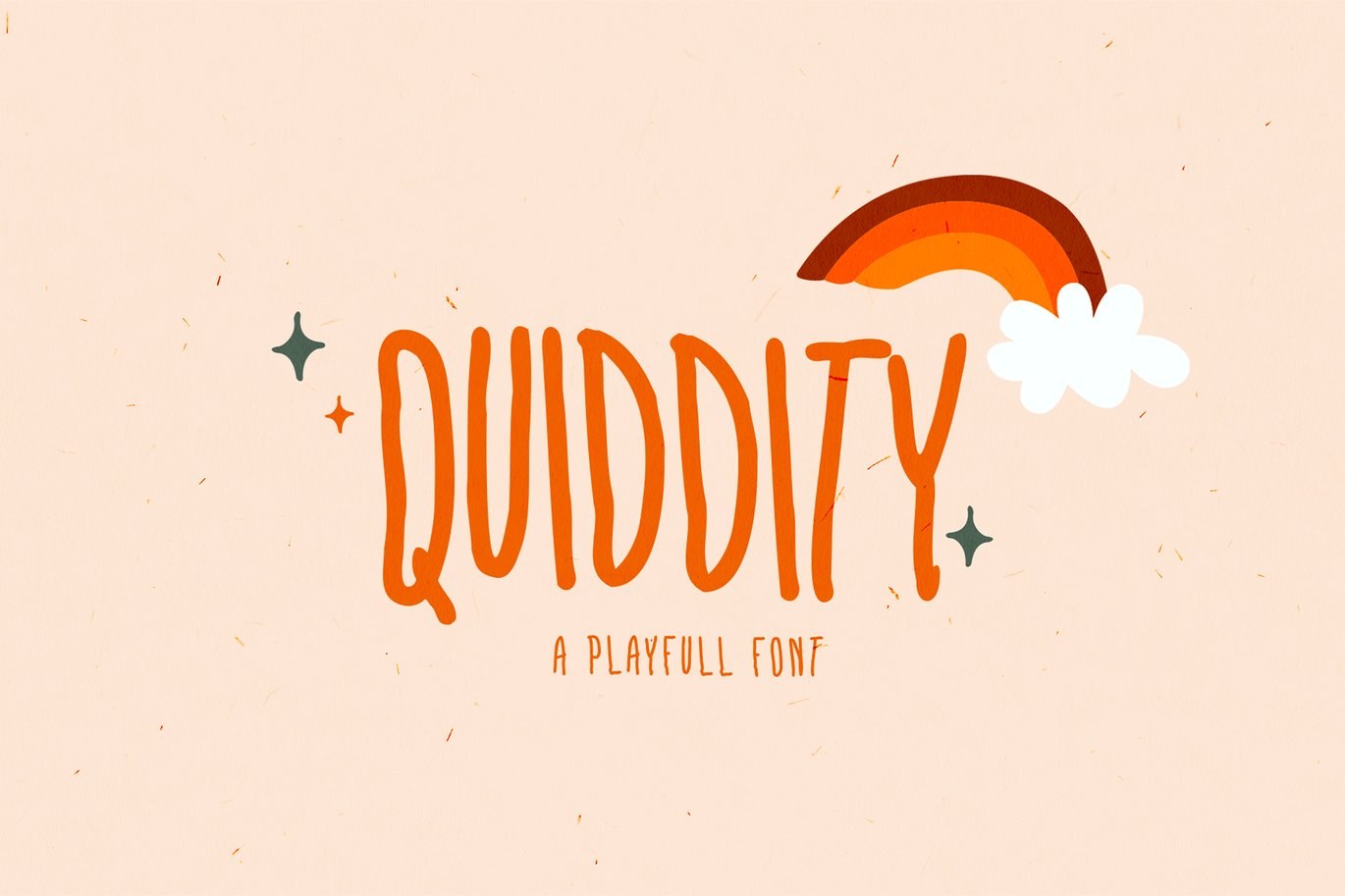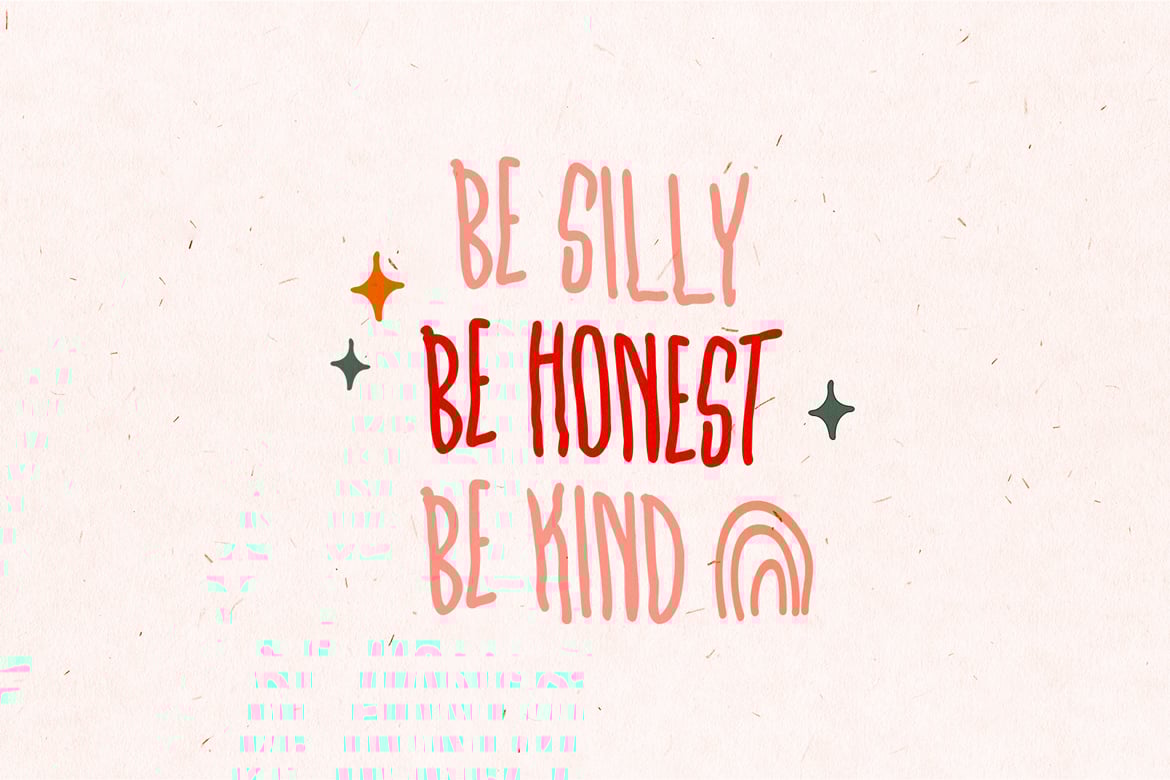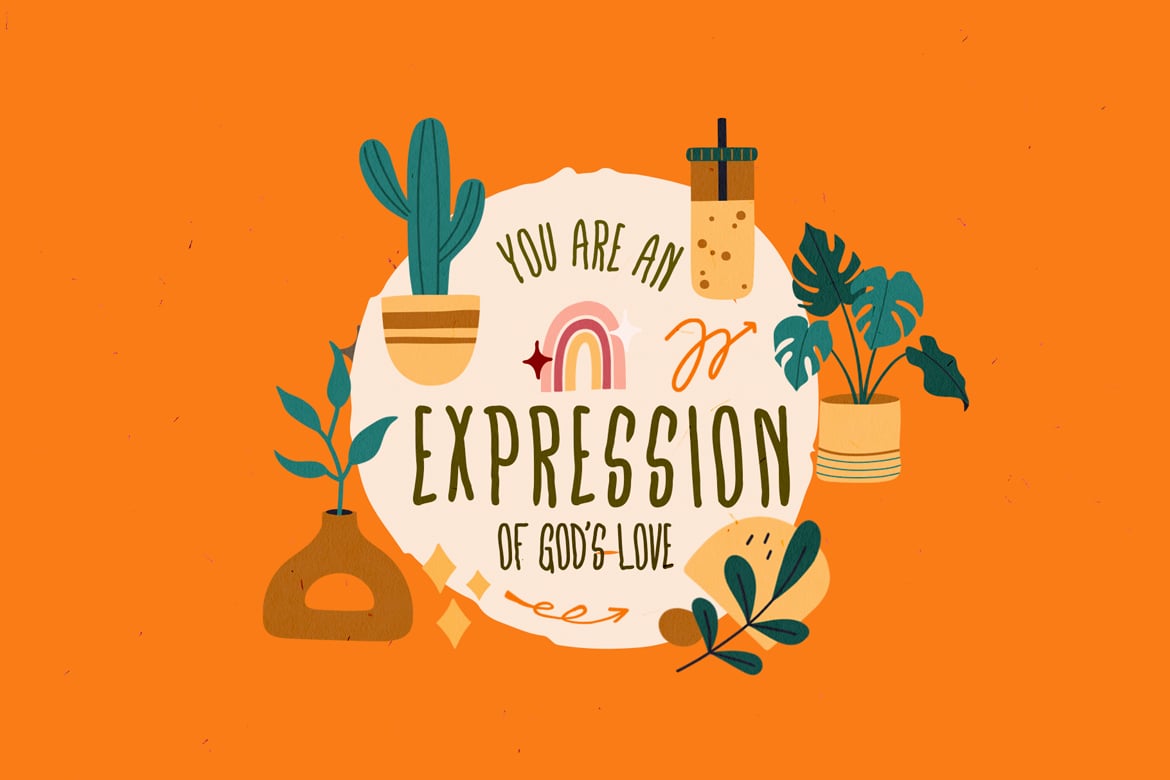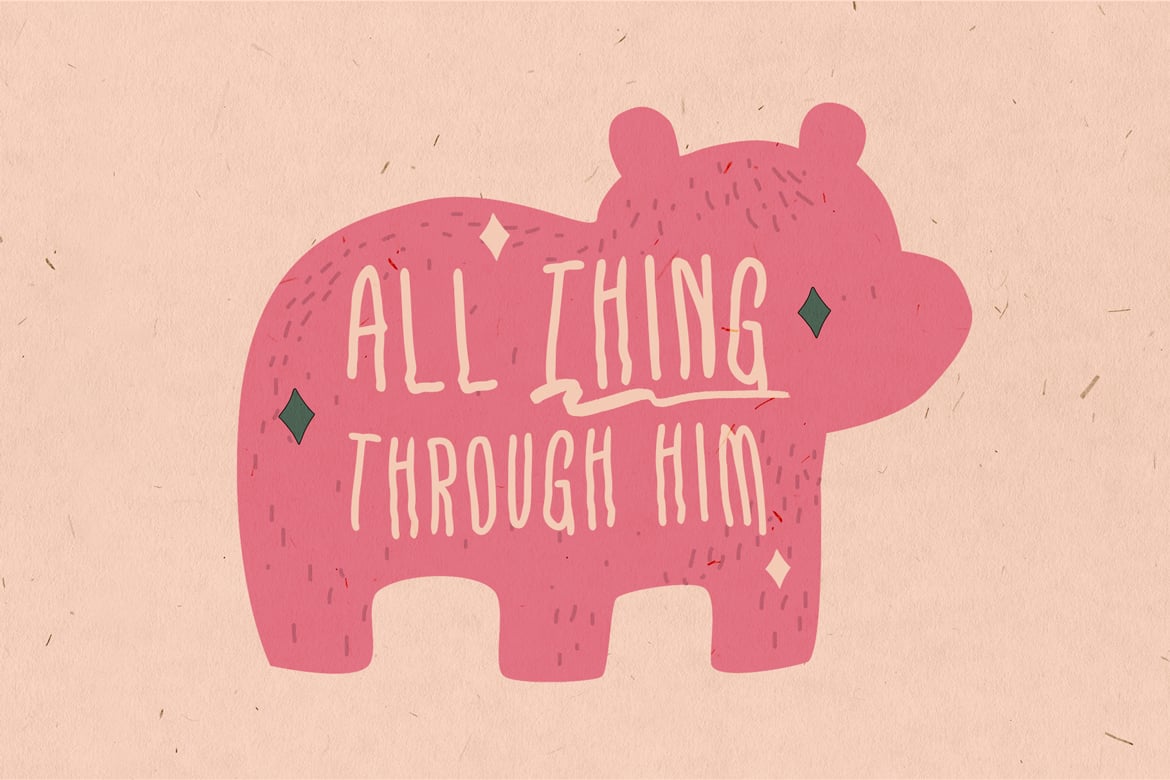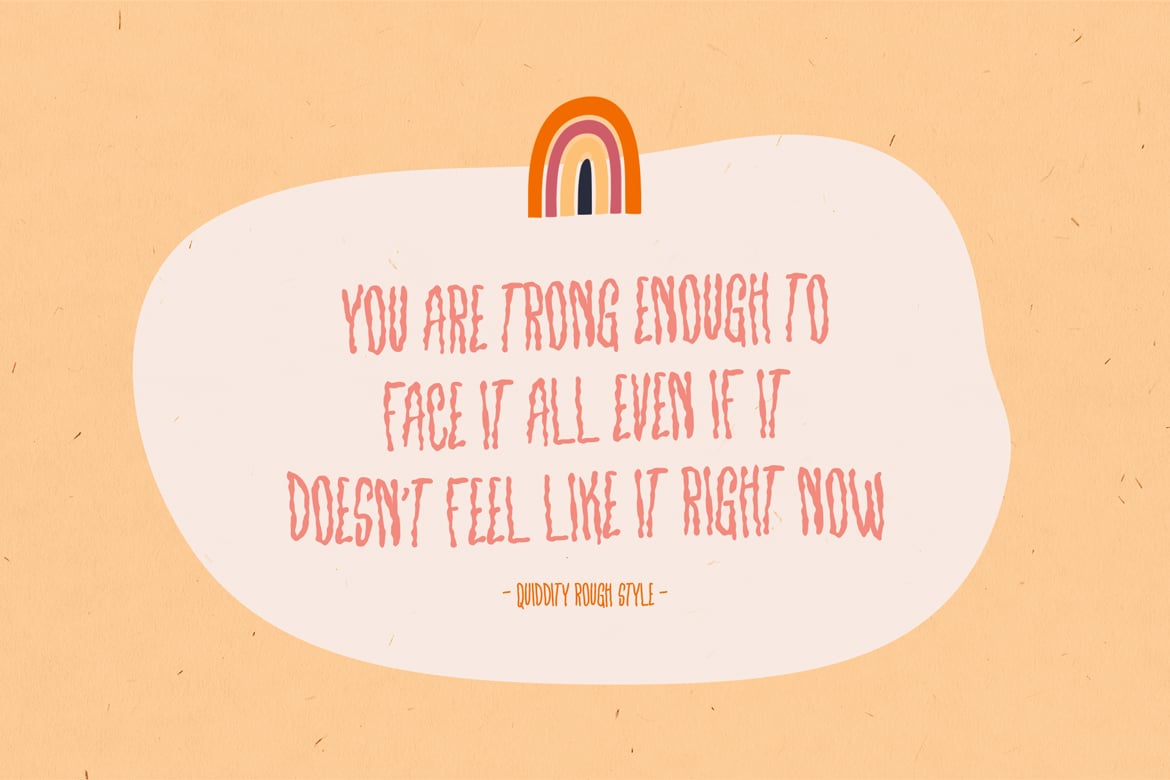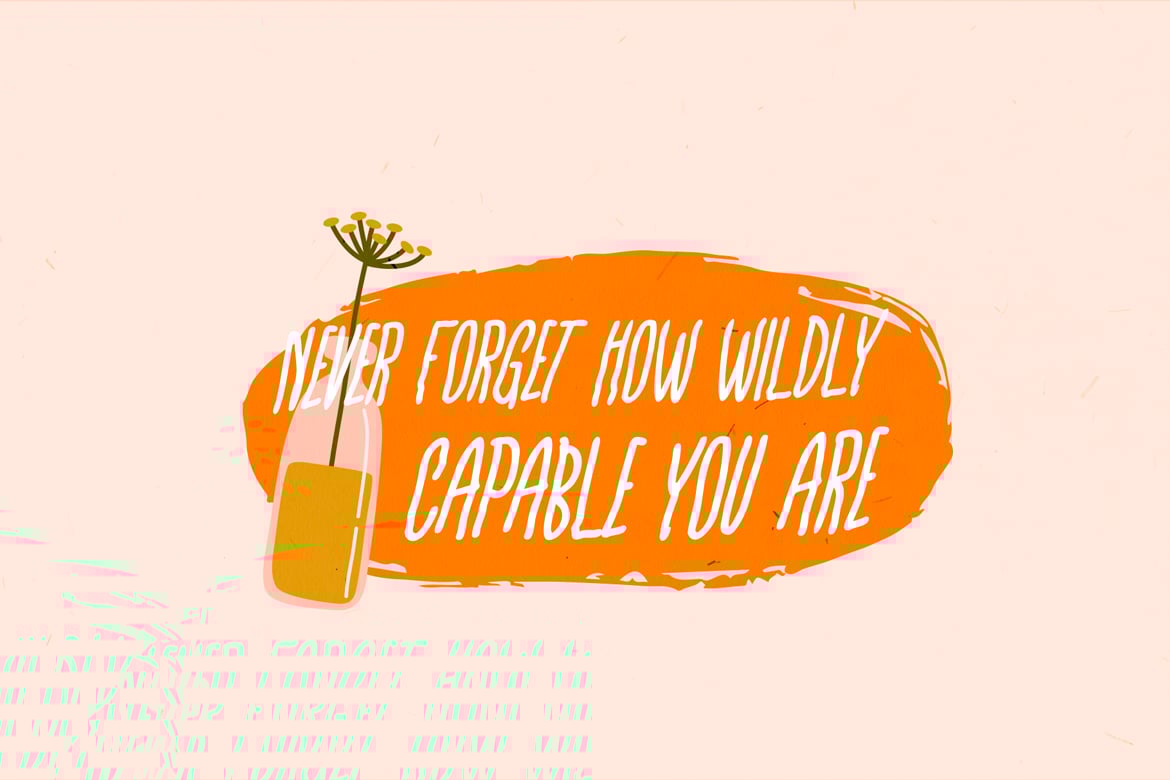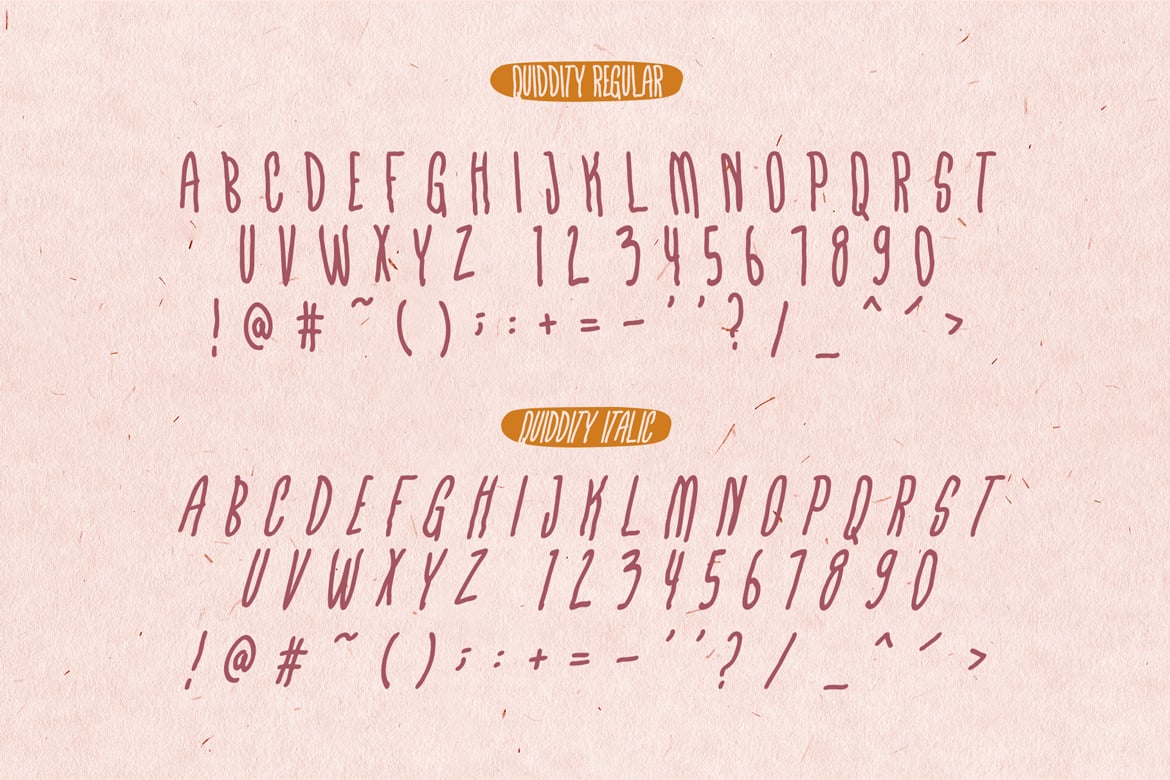
Quiddity Playful Font
GRVS Quiddity font is our new item that suitable for your logo, kid logo, pet logo, kid book, or funny book.
Great for kid, playful, and fun logo